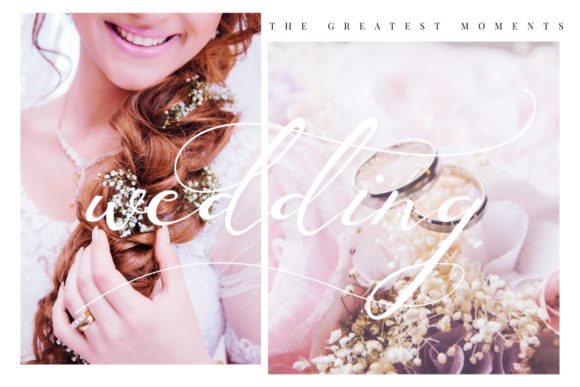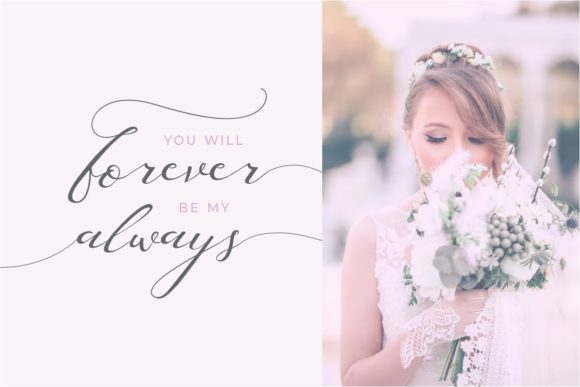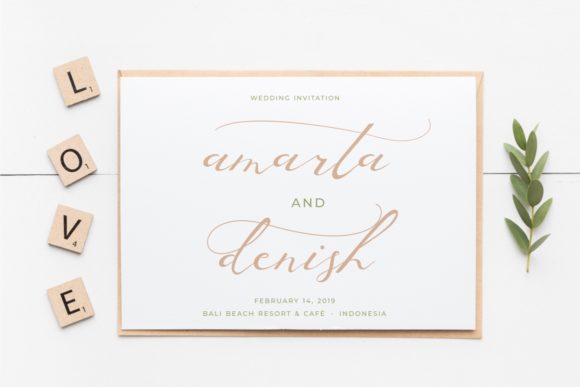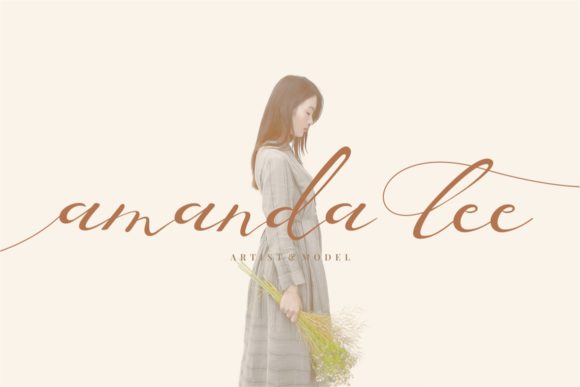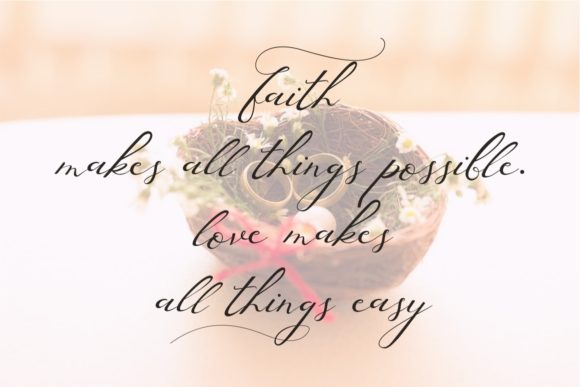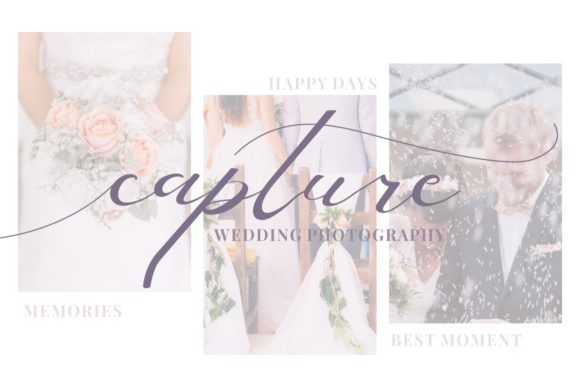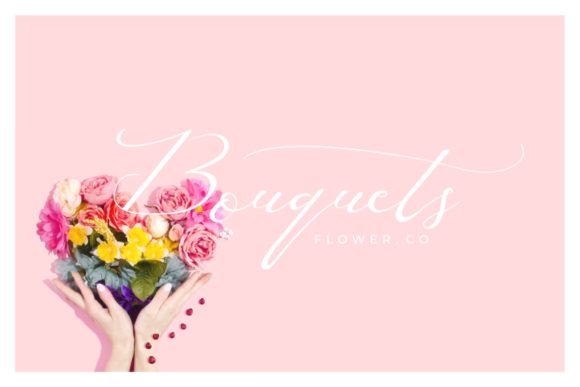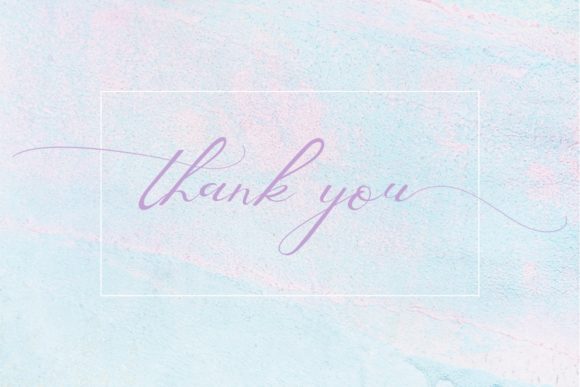
Lusya Font
About Lusya Font
The Lusya is an elegant calligraphy script. It has a natural handwritten style with a modern feel.
It’s perfect for wedding invitations, signature, typography lettering, branding, labels, posters, logos, quotes, product packaging, header, merchandise, social media & greeting cards and much more!